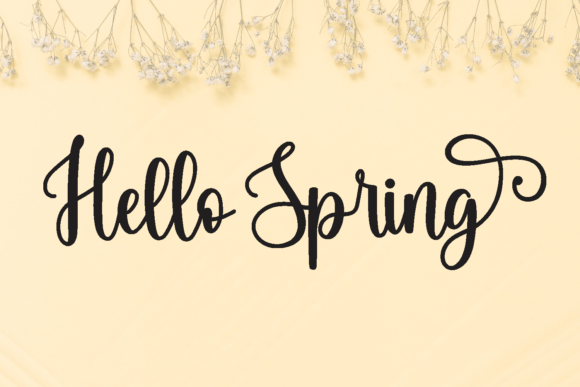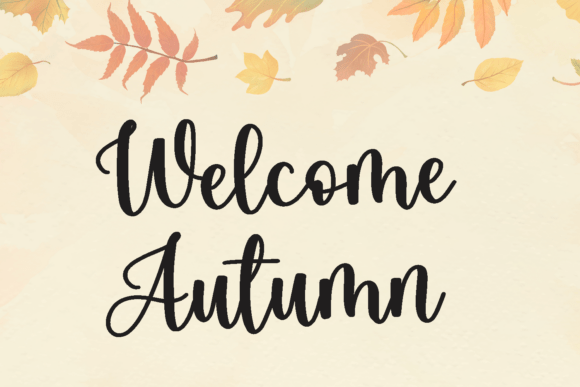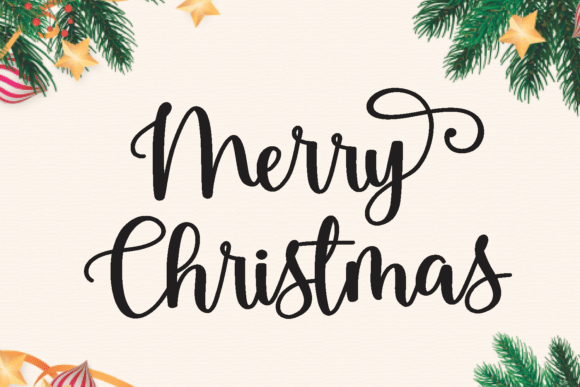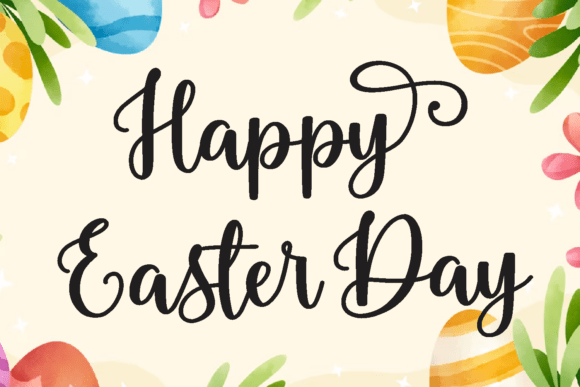
The Magic of Disney Font: Elevate Your Designs with Whimsy and Charm
Have you ever been working on a design project, and suddenly, you’re stuck on finding the perfect font? I recall a recent experience where I was creating a wedding invitation for a client, and I just couldn’t find a font that captured the essence of their special day. That’s when I stumbled upon the Disney font, and it was love at first sight! ✨ In this article, we’ll dive into the world of Disney font, exploring its features, uses, and tips on how to make the most of this charming script handwritten font.
A Personal Review: What I Love About Disney Font
So, what makes Disney font so special? Here are a few things that I absolutely love:
- ✨ Soft curves and playful loops that add a touch of whimsy to any design
- ✅ Elegant and sophisticated, perfect for wedding invitations and formal events
- ✅ Highly versatile, suitable for a wide range of design projects, from birthday cards to Christmas decorations
- ✅ Timeless style that resonates deeply with love and celebration
While Disney font is an excellent choice for many design projects, there are a few minor quirks to be aware of:
- ⚠️ Limited availability of stylistic alternates, which may limit its use in certain design contexts
- 🤔 May not be the best choice for very formal or corporate designs, as it can come across as too playful or whimsical
The Backstory of Disney Font
While the origins of Disney font are shrouded in mystery, it’s clear that the designer was inspired by the whimsical elegance of classic animated stories. The font’s soft curves and playful loops evoke a sense of enchantment and wonder, making it perfect for designs that require a touch of magic.
| Font Name | Disney Font |
| Author | Lisna.Craft |
| What is Disney font? | Disney font is a charming script handwritten font that captures the magic of fairy tales and the warmth of handwritten letters. |
| Can I use Disney font for wedding invitations? | Absolutely! Disney font is a popular choice for wedding invitations, adding a touch of romance and sophistication to your special day. |